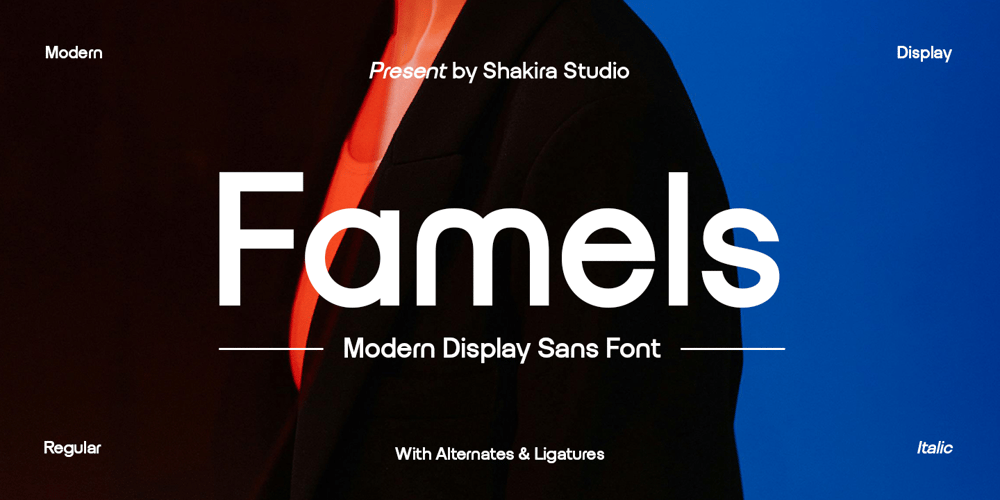
Famels Font Family was designed by Idhham Cholid Rikzano Yahya and published by Shakira Studio. Famels contains 2 styles and family package options. Introducing Famels – The Modern Display Sans Serif Font!Famels is the perfect blend of modern aesthetics and minimalist design, making it an ideal choice for contemporary projects. As a #SansSerif font, Famels stands out with its clean lines and versatile nature.With both Regular and Italic styles, along with stylish alternates and ligatures, Famels adds a sleek and professional touch to any design. Whether you’re working on branding, web design, or editorial projects, Famels ensures your work looks modern and sophisticated.Join the trend towards clean and elegant typography with Famels. Elevate your design projects with its modern appeal and timeless simplicity! #FamelsFont #ModernTypography #DesignTrends #SansSerif #ElegantDesignHere’s what you get: Regular & Italic All Multilingual symbol Opentype features ( ligature, alternate ) Accessible in the Adobe Illustrator, Adobe Photoshop, Adobe InDesign, even work on Microsoft Word. PUA Encoded Characters – Fully accessible without additional design software. Multilingual character supports : (Afrikaans, Albanian, Catalan, Croatian, Czech, Danish, Dutch, English, Estonian, Finnish, French, German, Hungarian, Icelandic, Italian, Lithuanian, Maltese, Norwegian, Polish, Portuguese, Slovenian, Spanish, Swedish, Turkish, Zulu)Follow my shop for upcoming updates, and for more of my work, If you need a custom license or have questions please visit our website: www.shakirastudio.comThank you!Shakira Studio